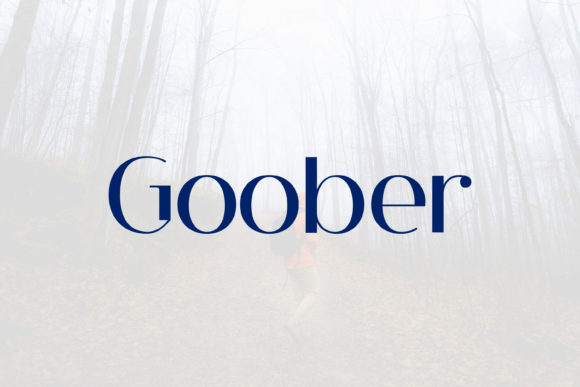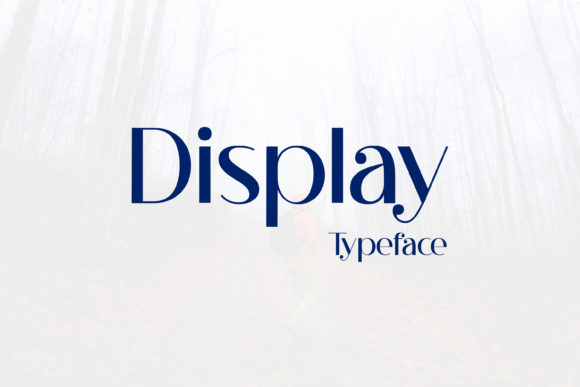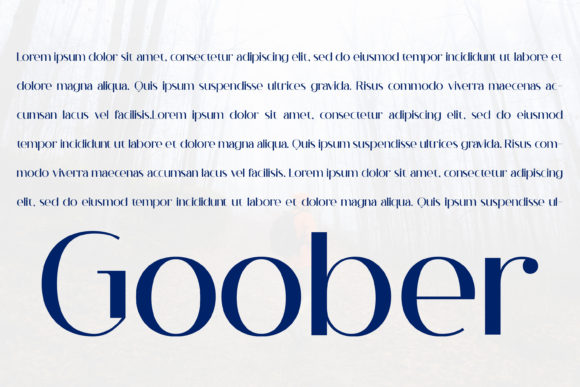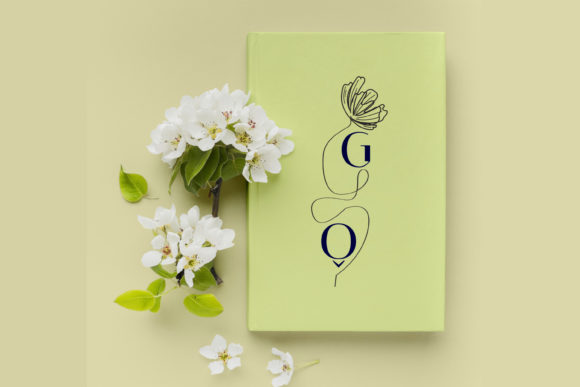
Introducing Goober Font: Elevate Your Designs with a Modern and Clean Display Font
In the world of design, fonts play a crucial role in conveying messages, evoking emotions, and creating a lasting impression. If you’re a designer, craftsperson, or simply a creative enthusiast, you’re likely always on the lookout for the perfect font to bring your projects to life. That’s where Goober Font comes in – a modern and clean display font designed to make your creative ideas stand out.
What is Goober Font?
Goober is a contemporary display font that exudes simplicity, elegance, and versatility. Its clean lines, precise curves, and well-balanced structure make it an excellent choice for a wide range of projects, from branding and advertising to packaging, signage, and digital media.
Key Features of Goober Font
- Modern and Clean Design: Goober’s sleek and minimalist design ensures that your text looks crisp, clear, and highly legible, even at smaller sizes.
- High Versatility: This font is incredibly adaptable, making it suitable for use in various contexts, including headings, titles, labels, and more.
- Large Character Set: Goober comes with an extensive character set, covering a broad range of languages and special characters, ensuring that you can use it for diverse projects.
Why Choose Goober Font?
With so many fonts available, why should Goober be your go-to choice? Here are a few compelling reasons:
- Enhance Readability: Goober’s clean design ensures that your text is easy to read, making it perfect for body text, headings, or any other application where clarity is key.
- Boost Creativity: The font’s modern aesthetic inspires creativity, allowing you to experiment with different styles, colors, and layouts.
- Save Time: With Goober, you can quickly create stunning designs without spending hours agonizing over typography.
- Stand Out: Goober’s unique yet versatile design helps your projects stand out in a crowded marketplace, capturing the attention of your audience.
Using Goober Font in Your Projects
Goober Font can be seamlessly integrated into various design projects, including:
- Branding and Logo Design: Create memorable logos and brand identities with Goober’s distinctive style.
- Advertising and Marketing Materials: Use Goober to craft compelling headlines, slogans, and taglines that grab attention.
- Packaging Design: Add a touch of modern sophistication to your product packaging with Goober.
- Digital Media: Employ Goober in website design, social media graphics, and video content to elevate your online presence.
Tips for Getting the Most Out of Goober Font
To maximize the impact of Goober Font in your designs, consider the following tips:
- Experiment with Sizes and Colors: Play with different font sizes and colors to create visual hierarchy and emphasize key messages.
- Combine with Other Fonts: Pair Goober with complementary fonts to add depth and interest to your designs.
- Pay Attention to Spacing: Adjust letter and line spacing to optimize readability and aesthetics.
Goober Font is a versatile, modern, and clean display font that can elevate your designs to new heights. Its adaptability, readability, and aesthetic appeal make it an excellent addition to any design project. Whether you’re a professional designer or a crafty DIY enthusiast, Goober is sure to become a staple in your font collection. So why wait? Download Goober Font today and discover how it can transform your creative ideas into stunning realities.